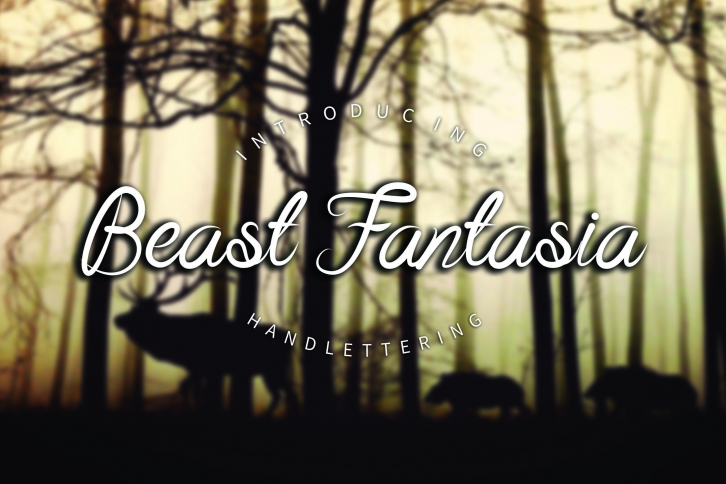
Beast Fantasia is a beautiful font that was designed by BoriesBechker. It's a great choice for designers and creatives who need such a font. It was released on January 27, 2019 and the file size is 16.64 MB. Beast Fantasia may give a more youthful, expressive and casual look to your project. It is a very beautiful, refined, elegant, and high-quality font.